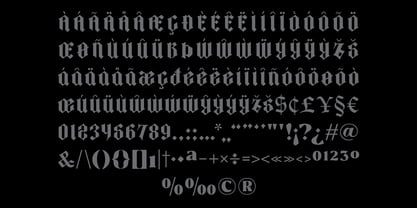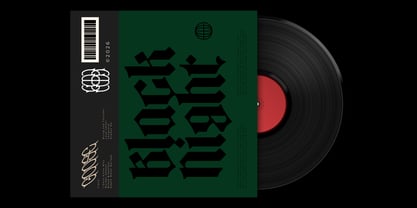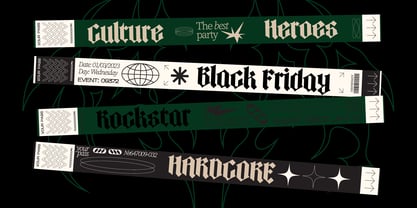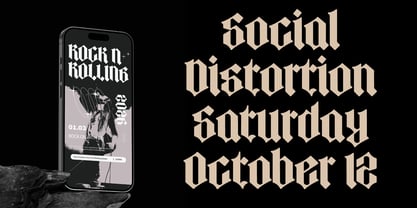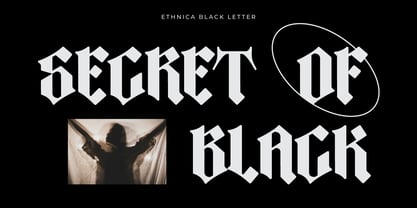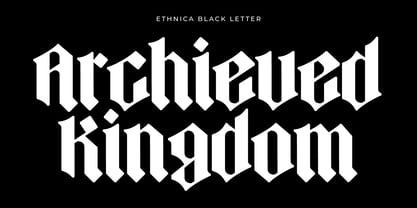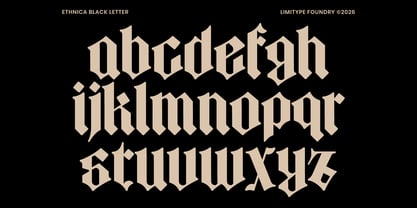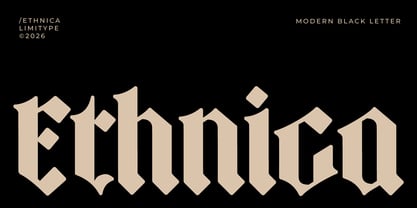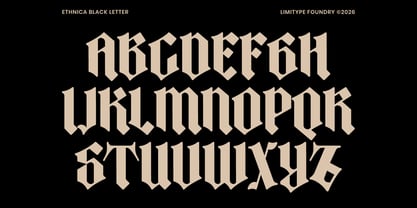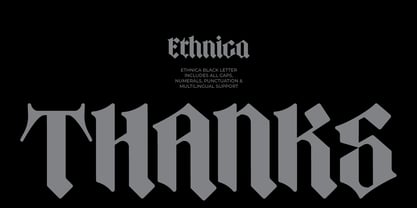
Ethnica
por limitype
La familia tipográfica Ethnica fue diseñada por Muhammad Muammar, Furqan Sudirman y publicada por limitype. Ethnica contiene 1 estilos.
Ethnica is a blackletter font with unique form, crafted to deliver a strong historical presence with a contemporary twist. Its sharp angles, dramatic strokes, and distinctive letter structures create a bold personality that stands out in branding, packaging, posters, editorial headlines, and logo design. Ethnica available with: Uppercase Lowercase Number Symbol Multilingual
Diseñadores: Muhammad Muammar, Furqan Sudirman
Editorial: limitype
Fundición: limitype